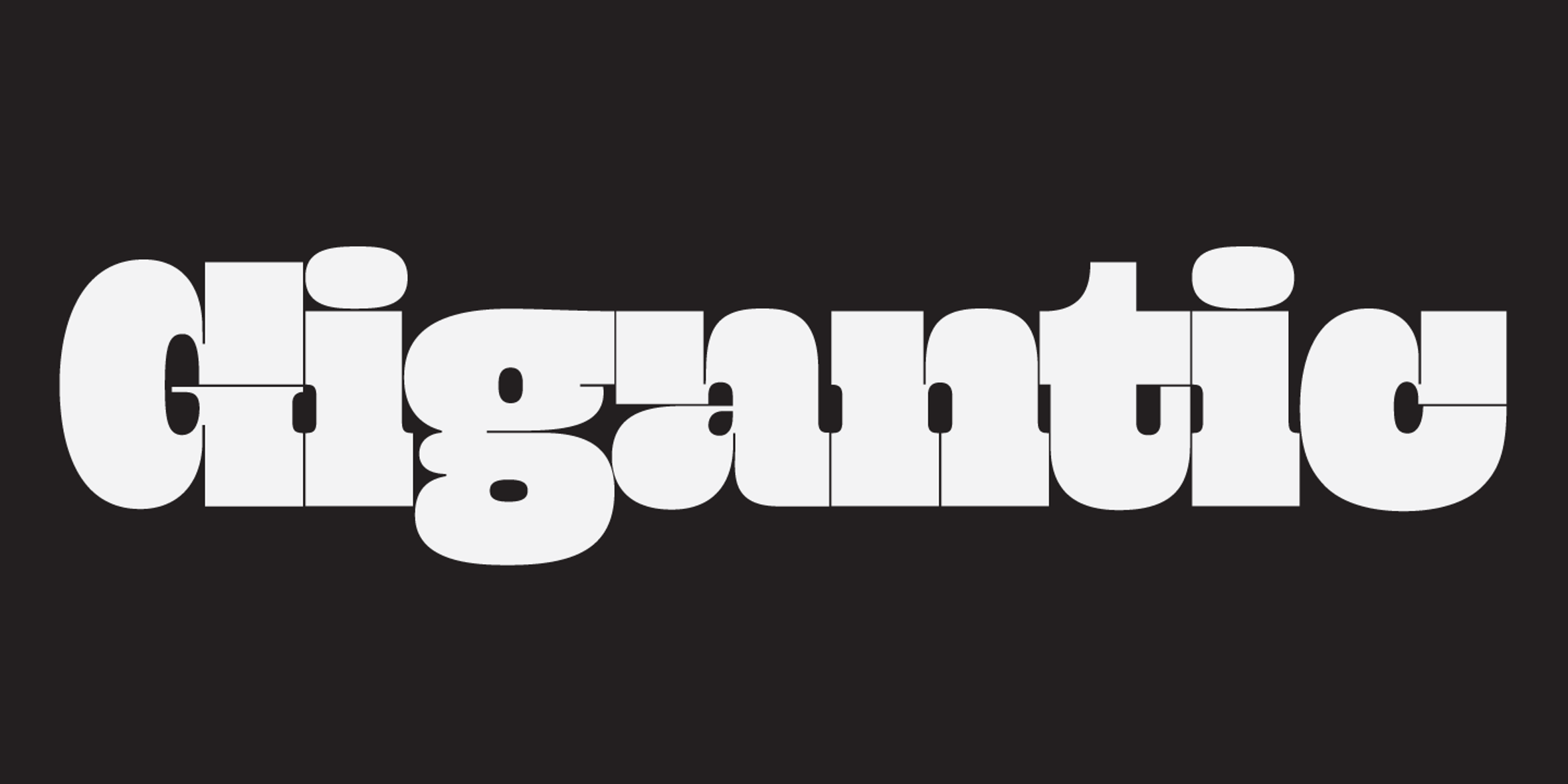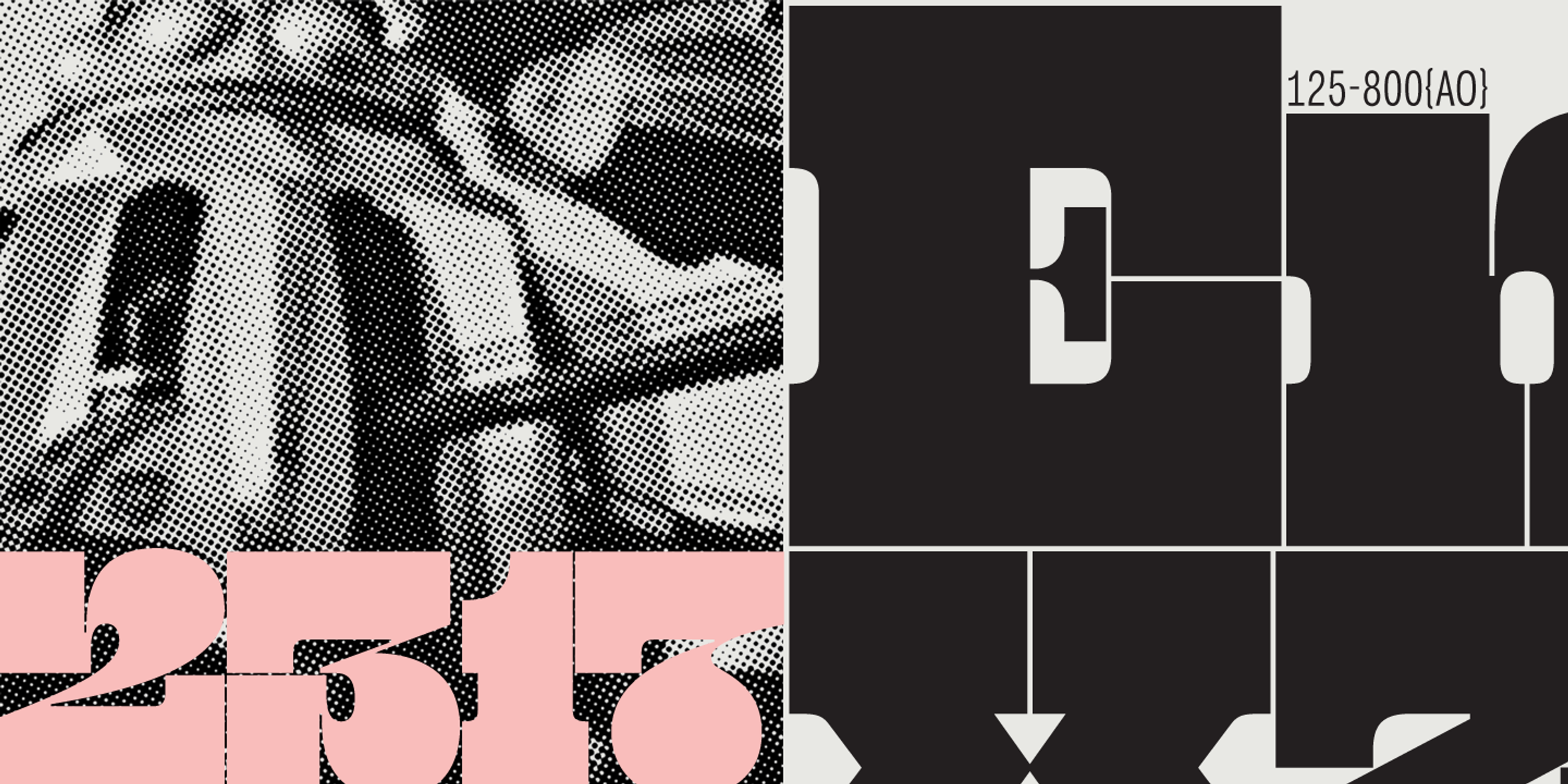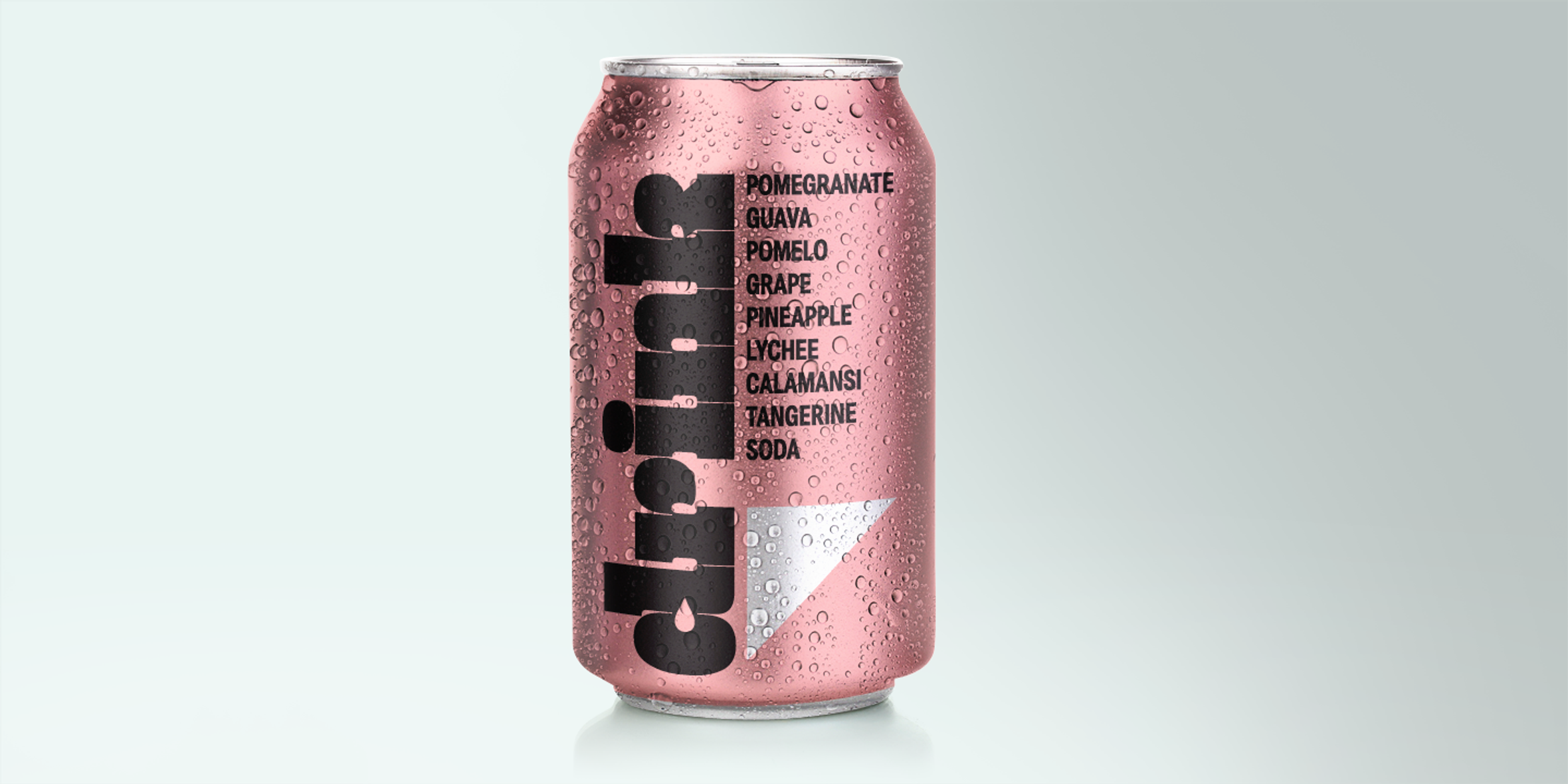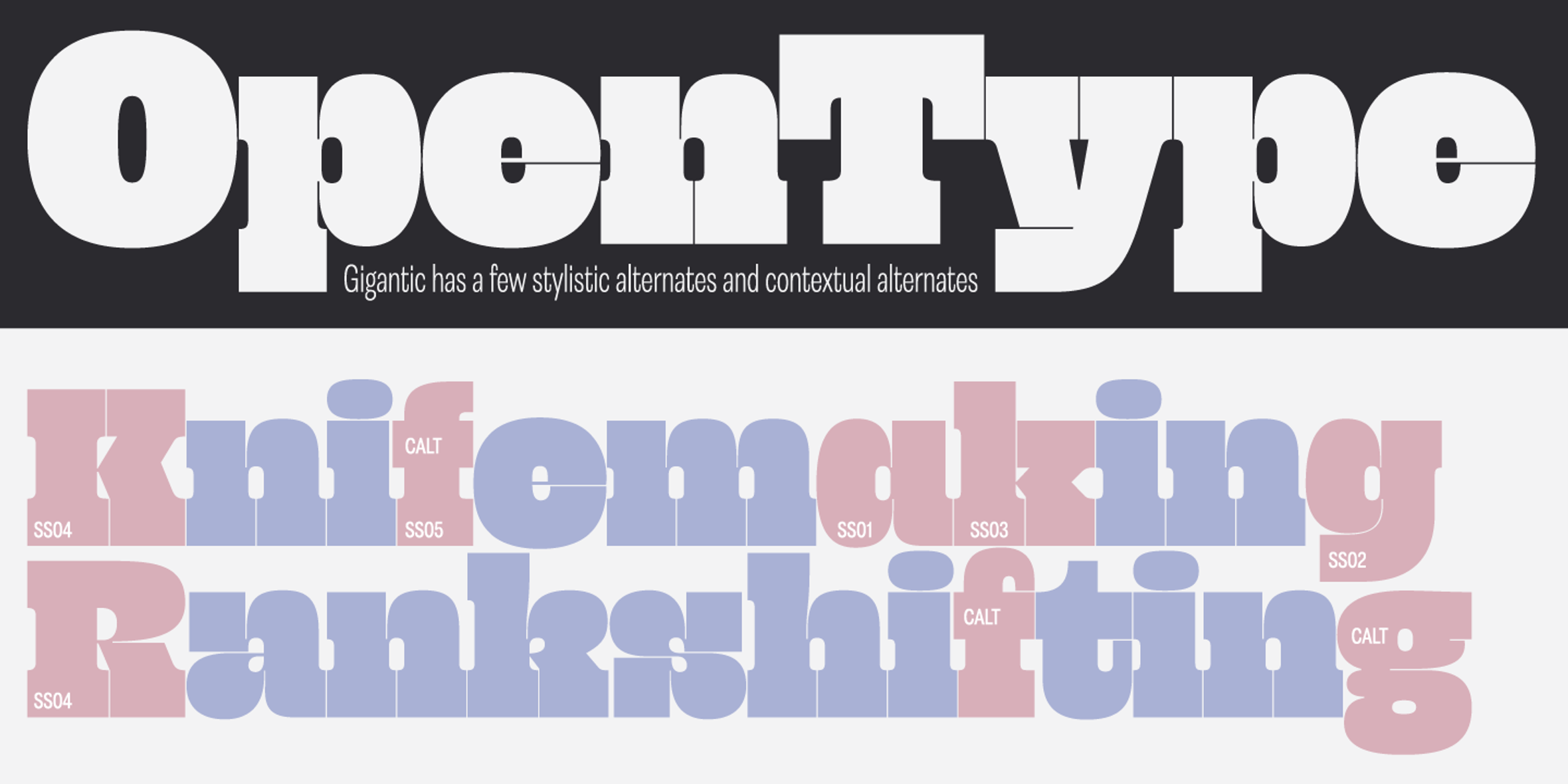
Gigantic Font
Gigantic
Gigantic is an audaciously proportioned slab serif and should be set large, as the name suggests. The type is spaced “tight-but-not-touching,” so you probably don’t want to go under 72 points. The font is intended to create impact — a block of text will have an undeniable graphic aesthetic while maintaining legibility. Because it’s so bold, it’s a great face to use with images showing through. It is ideal for magazine headlines, posters, and billboards, but not so ideal for setting novels.